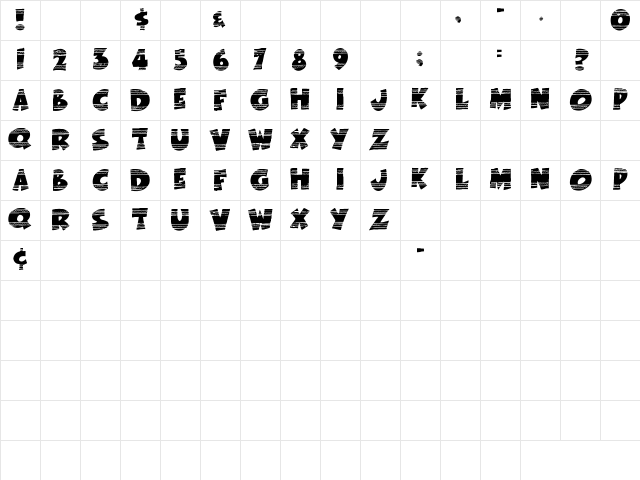
Complete NewWGL4Font Regular glyph index. Displaying only characters natively supported by NewWGL4Font Regular font.
NewWGL4Font is a composed and adaptable typeface that performs quietly and consistently across a wide range of design contexts.